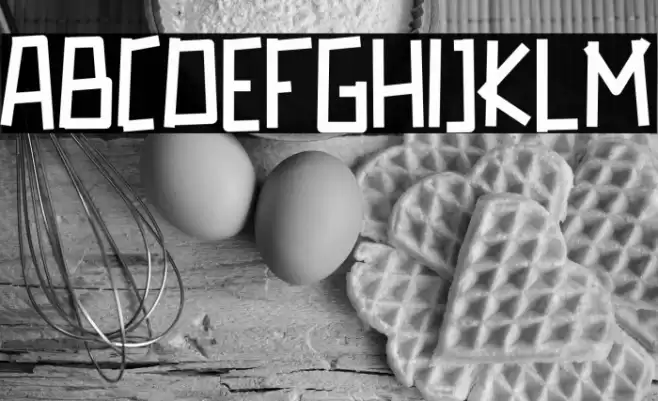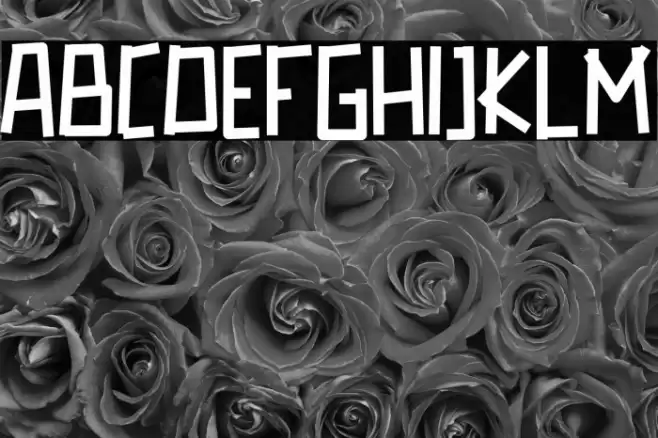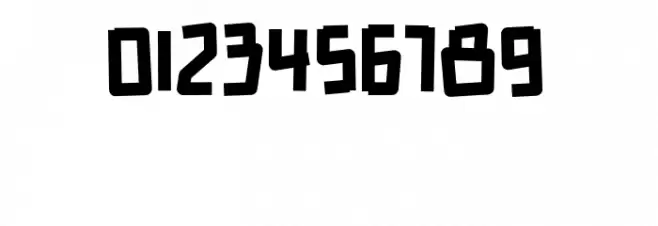
KazanFREE Font
KazanFREE Description
This font features a bold, angular design with a distinctly hand-drawn appearance. The characters are irregular and slightly tilted, giving it a dynamic and energetic feel. The uppercase and lowercase letters maintain a consistent style, with sharp edges and varying stroke widths that add a sense of movement. The numbers and special characters follow the same design principles, ensuring a cohesive look across all elements. This font's unique style makes it stand out, with a playful yet edgy vibe that can capture attention in various design contexts.
A bold, angular, hand-drawn font with a dynamic and energetic style from Cartoon fonts.
- Proposed Projects: Ideal for posters, album covers, graffiti art, and any project needing a bold, edgy statement.
- Overall Style: Modern, Decorative